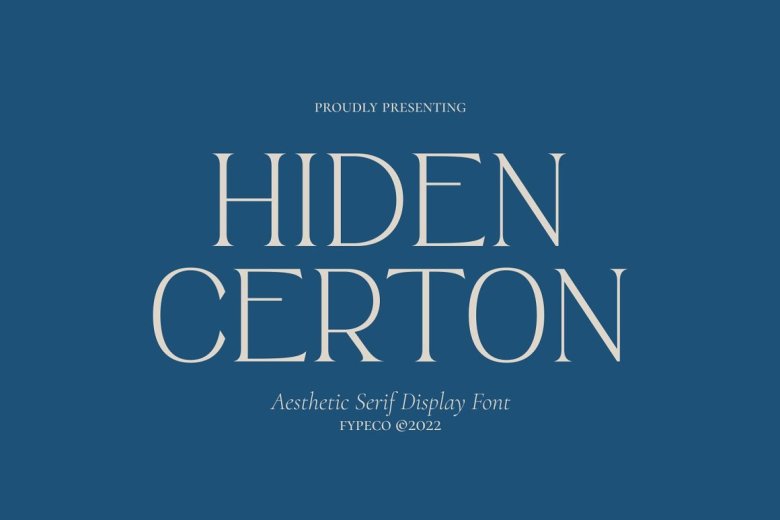
Hiden Certon Font
Introducing Hiden Certon , Aesthetic display Serif font with ligatures. Its style and style give it a luxurious and elegant look. Ideal for stunning logos, quotes, posters, blog posts. branding projects, magazine design, typography, and more.
Hiden Certon Serif Font